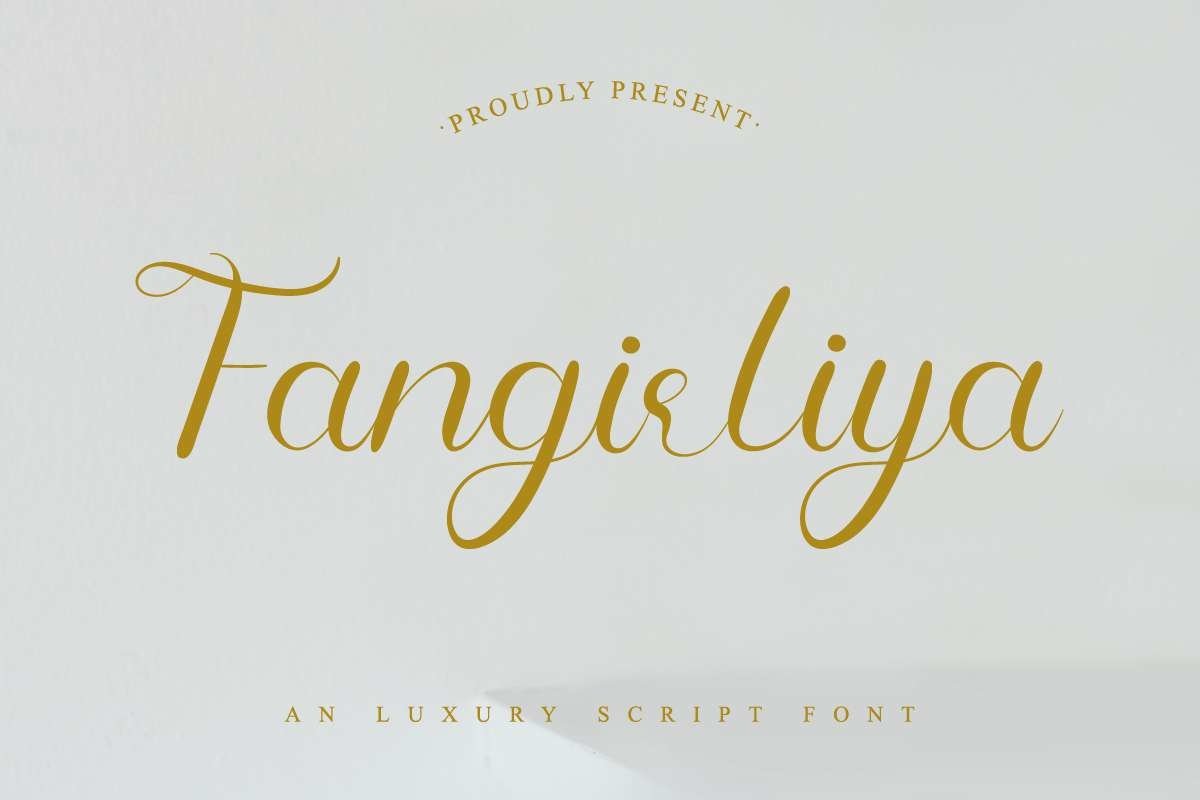
Fangirliya
Hello Everybody? Stay home!Introducing our newest font from our lovely artist : Fangirliya Calligraphy FontThis is a Calligraphy font, handcrafted from our Studio here in, Indonesia. The artists/designers of this beautiful tyeface is Widiyanti and Sarah Suci.Fangirliya Calligraphy Font is an exclusive calligraphy script typeface with brush style. This font has a stunning characters set, perfectly managed with well spaced and kerning. The theme style of this font will elegant, luxury, glamour, gold, vintage, stylish, sophisticated and classic brush calligraphic style. Fangirliya Calligraphy Font will be great for any projects including : branding, logo, stationery, business card, signage, flyer, brochure etc. Almost all industries will be match for this typeface: wedding, events, real estate, architect, law firm, florist, gardening, makeup artist, travel, hotel, musician etcHere’s what you’ll get on the zip pack :